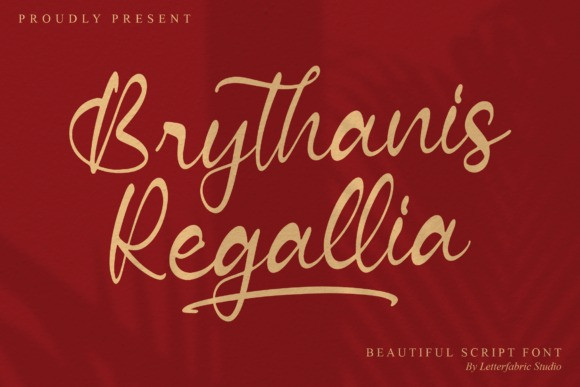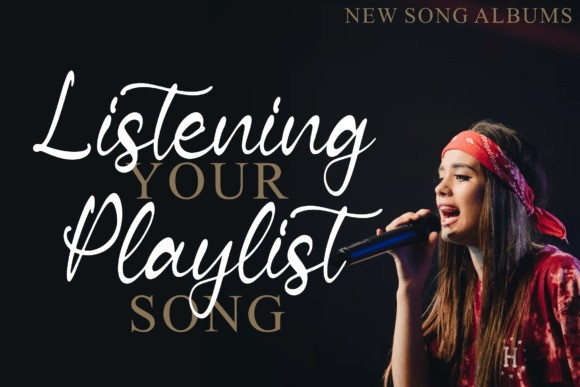
Brythanis Regallia Font
Brythanis Regallia feels equally charming and elegant. It looks stunning on wedding invitations, thank you cards, quotes, greeting cards, logos, business cards and every other design which needs a handwritten touch.